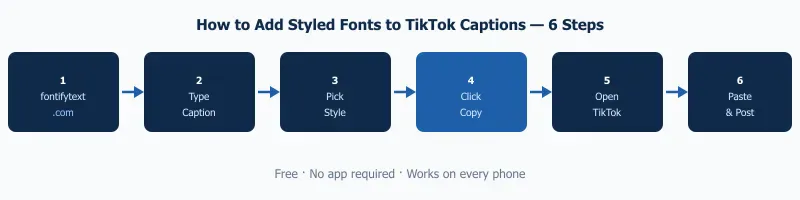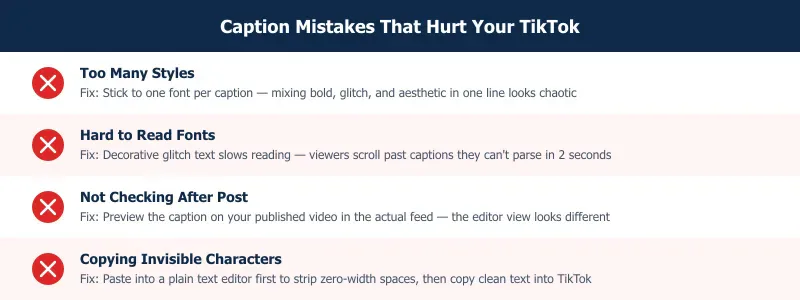
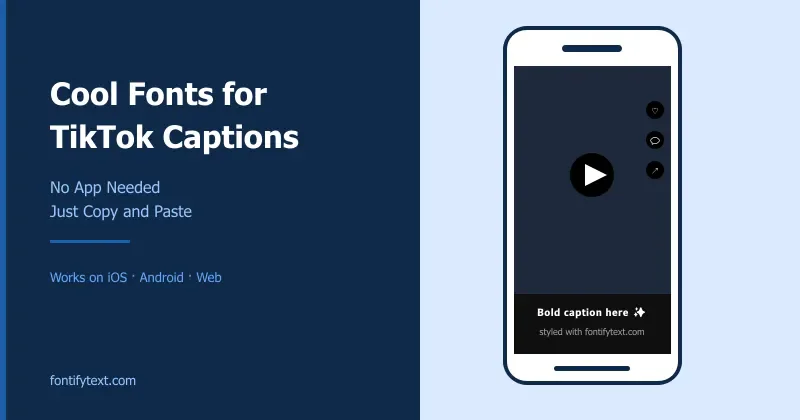
Use fonts for tiktok captions as short Unicode accents that make a caption easier to notice while the main message stays readable.
TikTok captions appear directly below every video, and they are one of the first things a viewer reads before deciding whether to watch the full clip. Most captions use the platform's default text, which means they look identical to every other caption in the feed. Styled Unicode fonts for tiktok captions break that pattern. The text looks different from everything around it, so the eye pauses for a moment.
Why Styled TikTok Caption Text Changes Watch Behavior
Fonts for TikTok captions can help a short line stand apart from the default caption text under a video. When a viewer opens TikTok and sees styled text in the caption ā bold Unicode, unusual letter spacing, or glitch-style characters ā the line gets noticed faster. A caption is still there to communicate, so the style should support the message instead of making it harder to read.
Plain captions do not signal anything. They read as default. Styled text signals that the creator pays attention to presentation.
The direct answer: Styled Unicode fonts for tiktok captions work because TikTok's caption field accepts any Unicode text. You paste styled characters, TikTok displays them exactly as entered. Every viewer's phone renders them because Unicode is built into every modern operating system ā no app required, no special settings needed.
Fonts for TikTok Captions That Work
These five styles each serve a different content type. Match the style to the tone of your video.
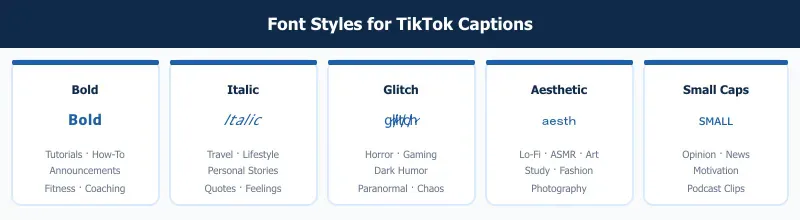
Bold Text for TikTok Captions
Example: š§šµš¶š š°š®š½šš¶š¼š» š¶š šÆš¼š¹š±
Mathematical Sans-Serif Bold renders as heavy, clean text that reads fast. On TikTok, the caption sits in small text below the video. Bold characters look heavier than the surrounding interface text, so they stand out without looking out of place.
Best for: tutorials, how-to content, announcements, fitness, productivity, and any video where you want the caption to reinforce a key message quickly and clearly.
Tip: Bold works best on the first line of a two-line caption. The second line in plain text acts as contrast, drawing the eye down to read both lines naturally.
Italic Text for TikTok Captions
Example: šš©šŖš“ šŖš“ šŖšµš¢ššŖš¤ šµš¦š¹šµ
Mathematical Sans-Serif Italic has a slight lean that reads as conversational and expressive. It does not stand out as dramatically as bold, but it creates a clear visual difference from default text without signaling a specific aesthetic.
Best for: travel, lifestyle, personal stories, quotes, and captions that are meant to feel like a spoken aside rather than a structured announcement.
Tip: Italic works well as the second line of a caption when you use bold on the first. The contrast between the two styles creates a visual hierarchy that feels natural and easy to read in sequence.
Glitch/Cursed Text for TikTok Captions
Example: g̷l̸i̷t̸c̸h̷ ̷t̸e̓x̷t̸
Glitch text uses Unicode combining diacritical marks that stack above and below each letter, creating a corrupted, glitching appearance. It is deliberately hard to fully parse ā which is exactly the point.
Best for: horror content, gaming highlights, dark humor, paranormal themes, and any video meant to feel unsettling or deliberately chaotic. The style signals immediately to viewers familiar with internet culture.
Tip: Use glitch text for a single word or short phrase, not the entire caption. A full sentence in glitch text becomes unreadable quickly, and you lose the information the caption is supposed to carry.